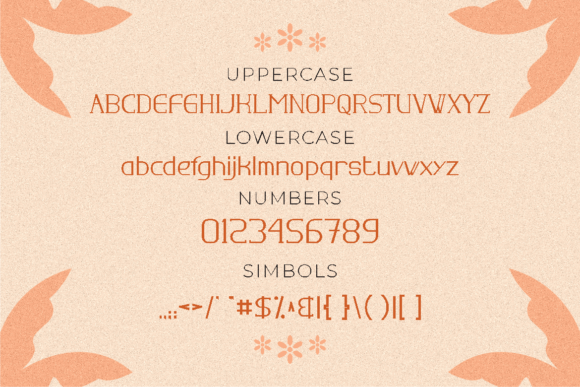
Loraida Font
LORAIDA FONT SPECIMEN
Loraida is a unique and authentic slab serif font. The font is suitable for any branding project like logo, t-shirt printing, esports, and many more. It will look outstanding in a wide range of contexts.